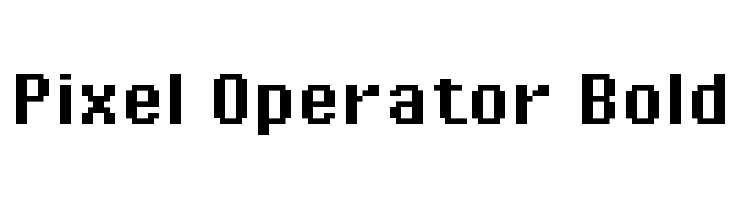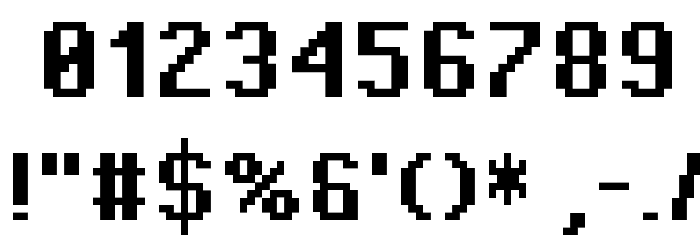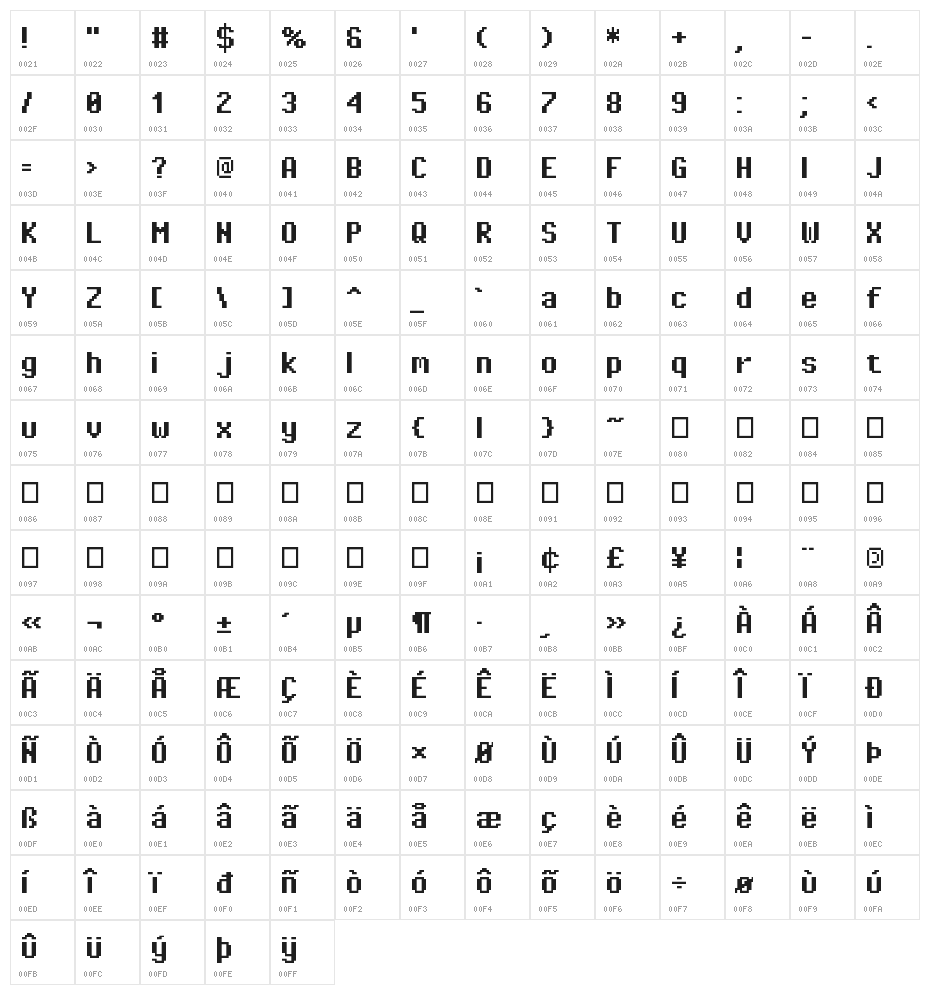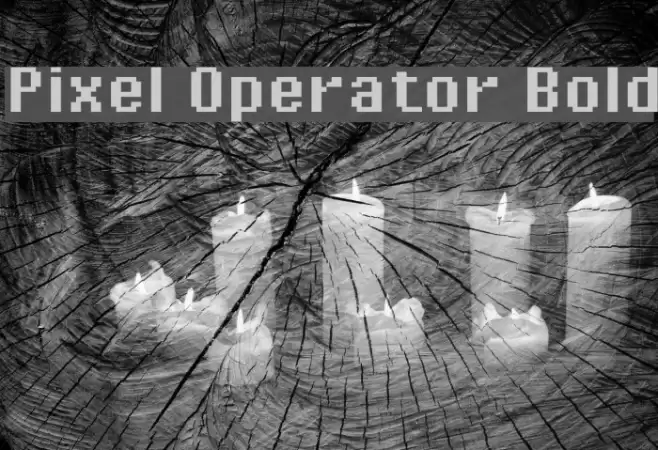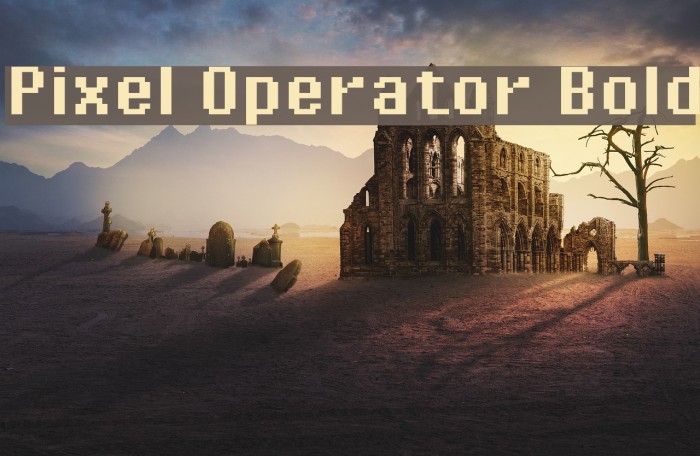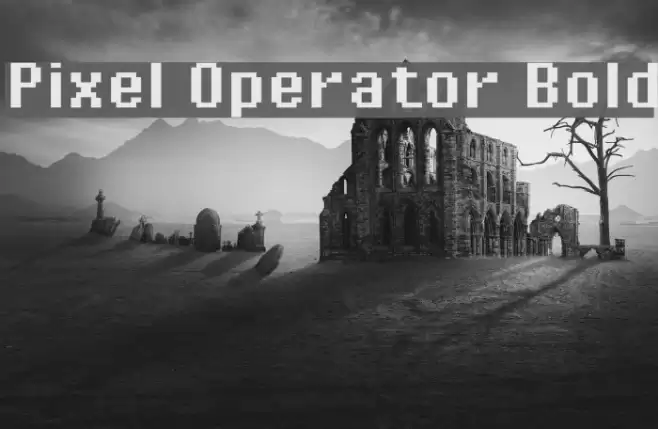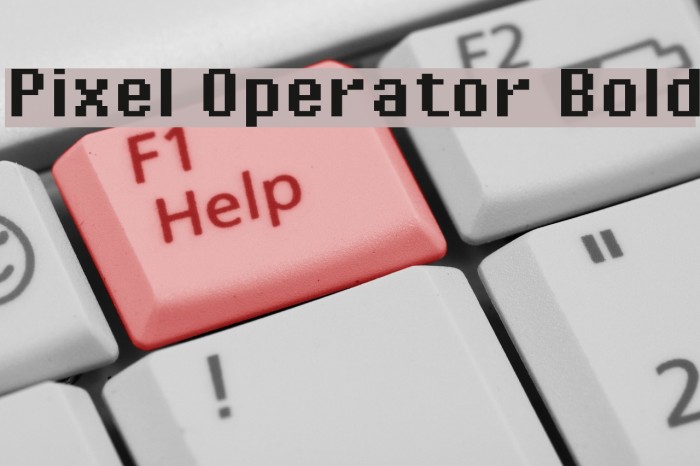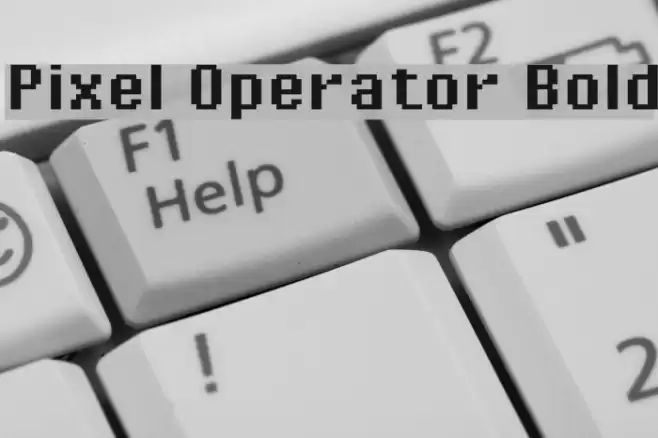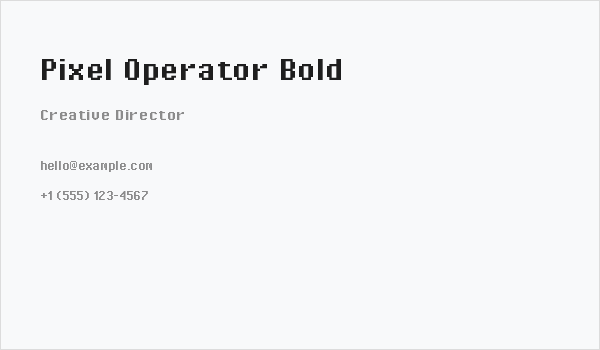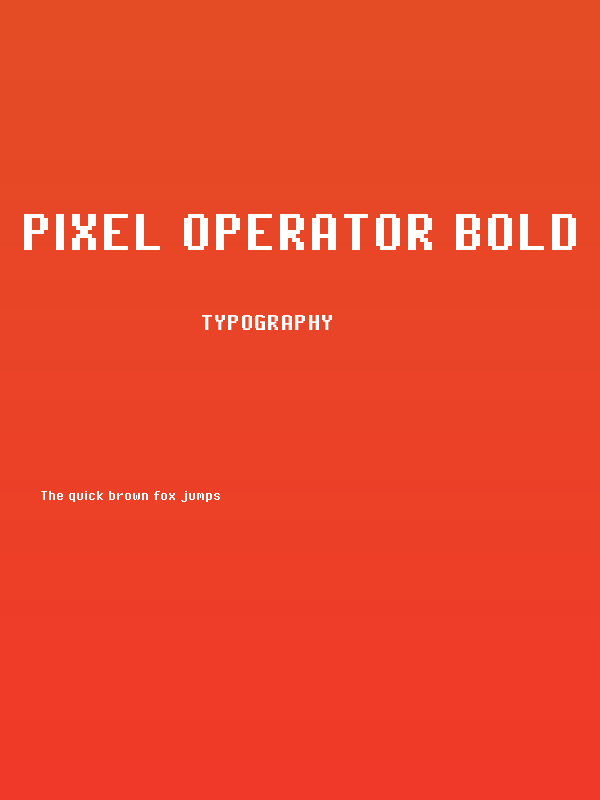
Pixel Operator Bold Font
Pixel Operator Bold Description
This font is a bold, pixelated typeface that embodies a retro, digital aesthetic reminiscent of early computer and video game graphics. Each character is constructed with a grid-like precision, featuring sharp edges and uniform stroke widths that create a cohesive and structured appearance. The uppercase and lowercase letters maintain a consistent height, contributing to a monospaced feel, although the font itself is not strictly monospaced. The numerals and special characters are designed with the same pixelated style, ensuring a harmonious look across all glyphs. This font's boldness and distinct pixelated design make it highly legible at various sizes, especially in digital formats.
| Use Case | Headlines, Logos, Digital Art |
| Proposed Projects | Ideal for video game design, digital art projects, retro-themed websites, and any creative work that requires a nostalgic, digital look. |